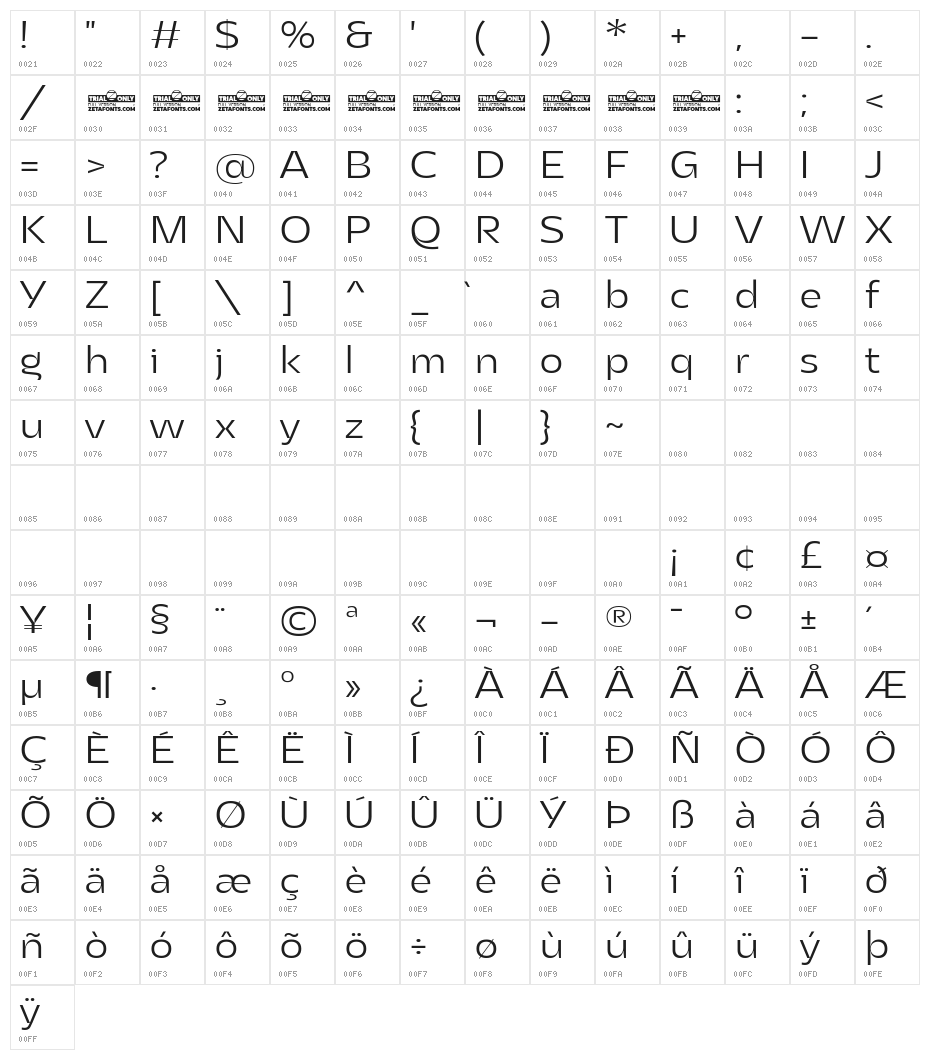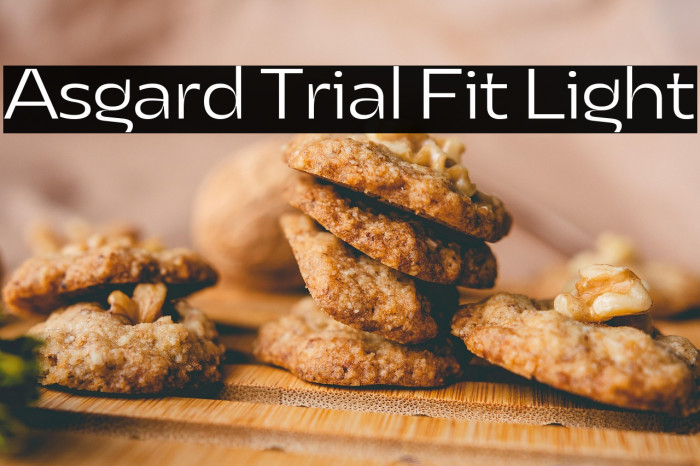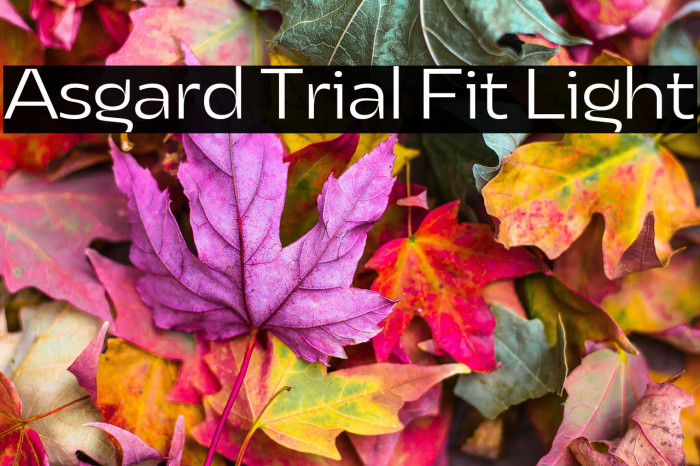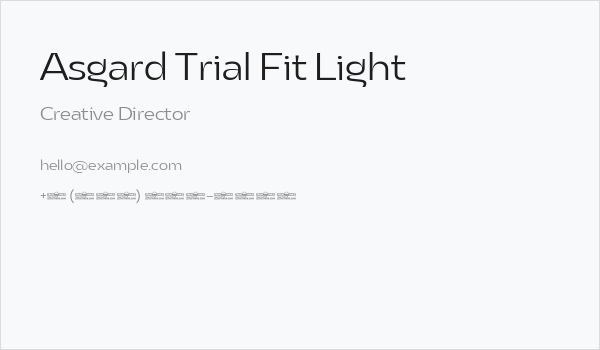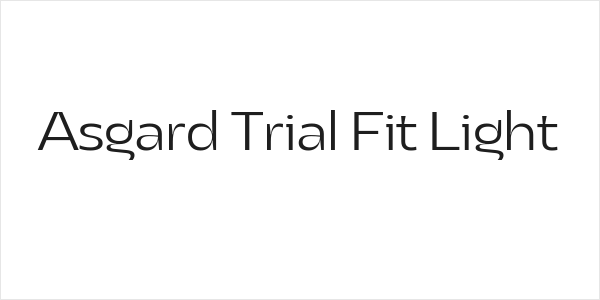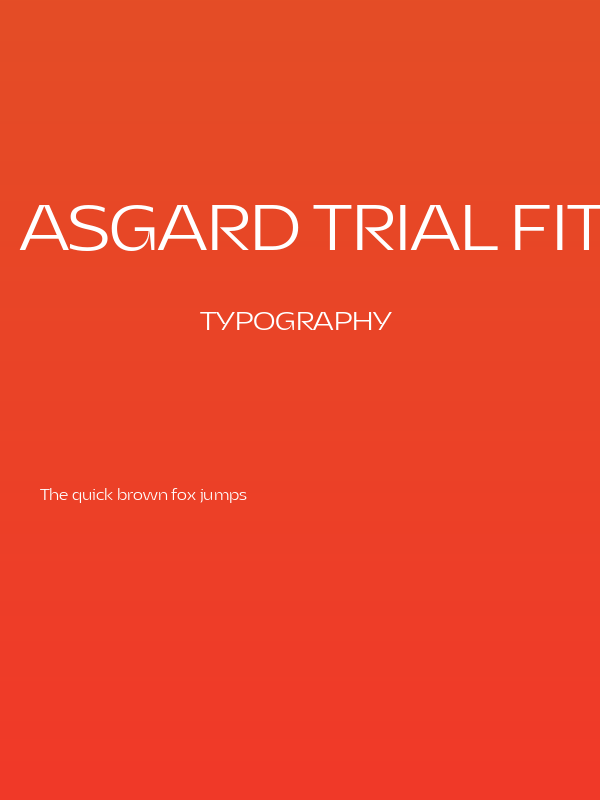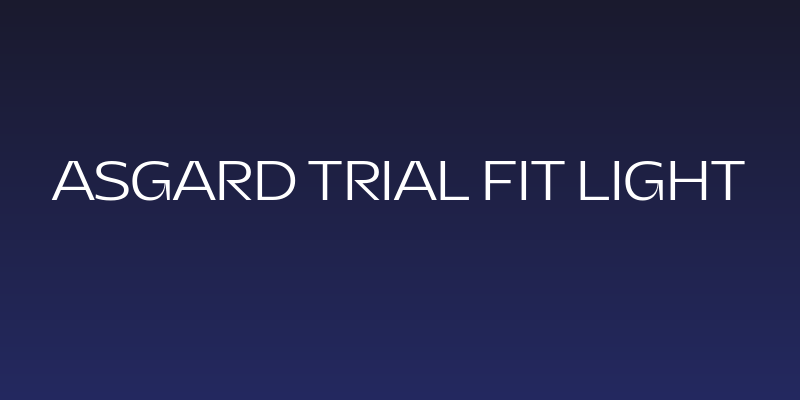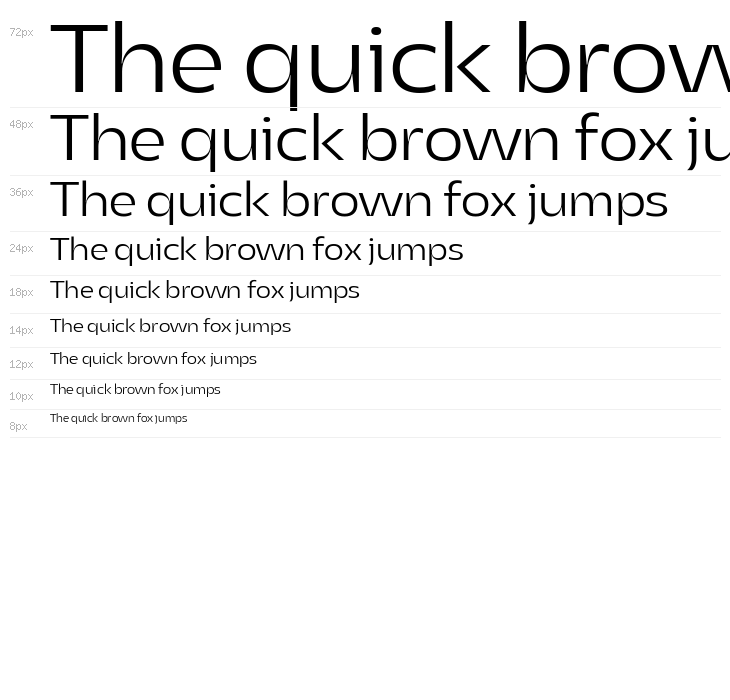
Asgard Trial Fit Light Font
Asgard Trial Fit Light Description
This font presents a sleek and modern aesthetic with clean lines and a minimalist design. The characters are evenly spaced, providing a balanced and harmonious appearance. The uppercase letters are bold and assertive, while the lowercase letters maintain a consistent style with slightly rounded edges that add a touch of softness. The numerals are clear and legible, making them suitable for various applications. Special characters are well-defined, ensuring versatility in usage. The overall design is contemporary, making it ideal for projects that require a fresh and professional look.